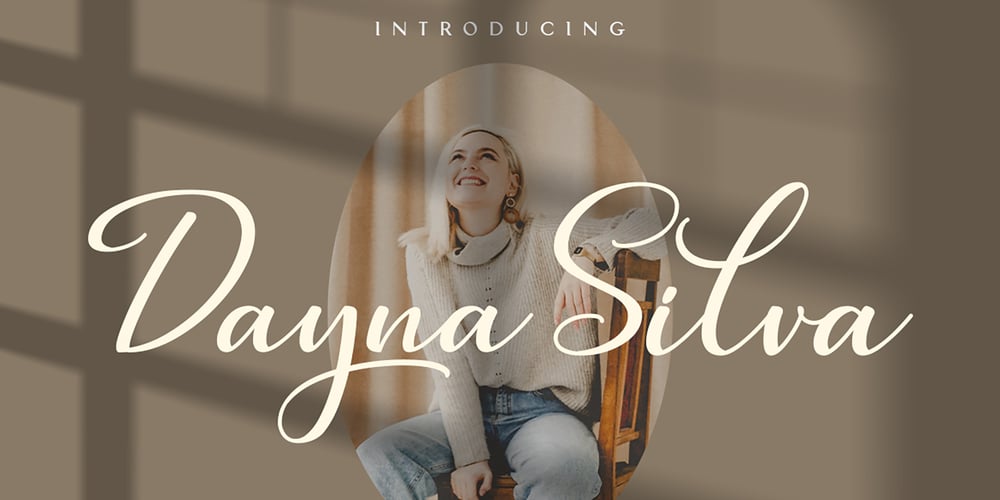
Dayna Silva
Dayna Silva font
Dayna Silva Font Family was designed by Tezar Tantular and published by Keristyper Studio. Dayna Silva contains 1 styles and family package options. Dayna Silva – Elegant Script Font is a modern handwritten script font with a lovely touch. Dayna Silva Font will work perfectly for fashion, e-commerce brands, trend blogs, wedding boutiques, or any business that wants to appear upscale and chic.Dayna Silva Font multilingual support: Afrikaans, Albanian, Catalan, Danish, Dutch, English, Estonian, French, Finnish, German, Icelandic, Indonesian, Italian, Malay, Norwegian, Portuguese, Spanish, Swedish, Zulu, and many more.What’s Included : Standard & Multilingual glyphs Ligature Works on PC & Mac Simple installations Accessible in Adobe Illustrator, Adobe Photoshop, Adobe InDesign, and even work on Microsoft Word. Hope you enjoy our font!